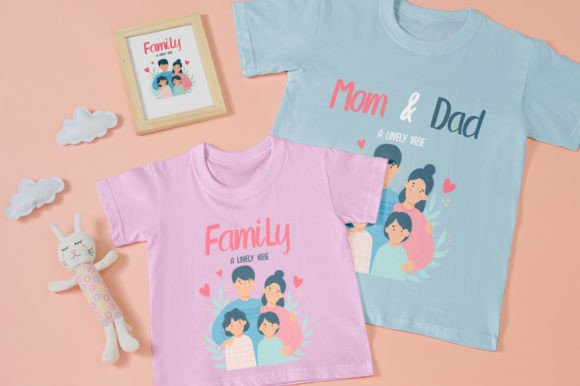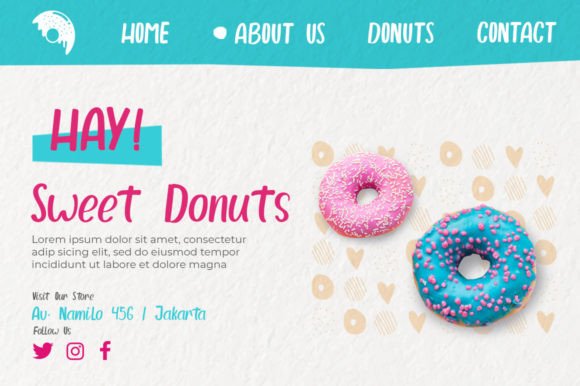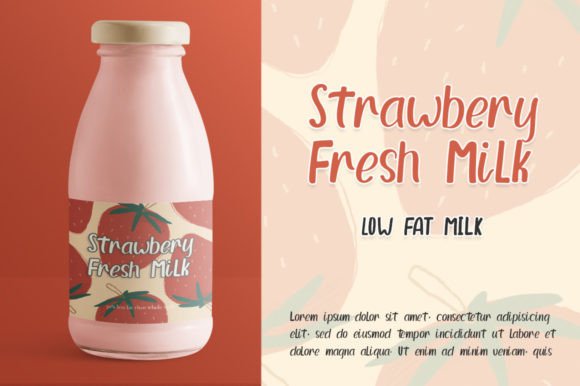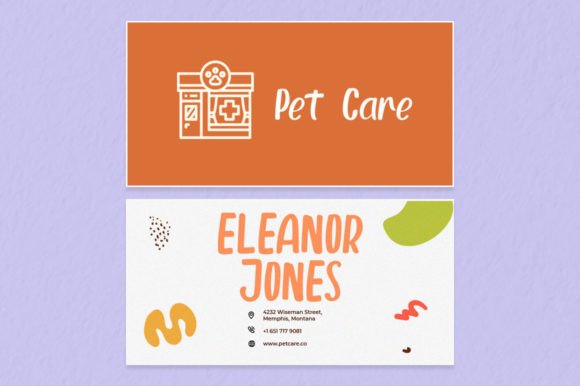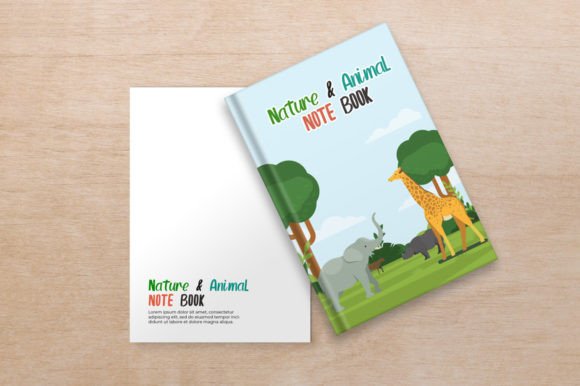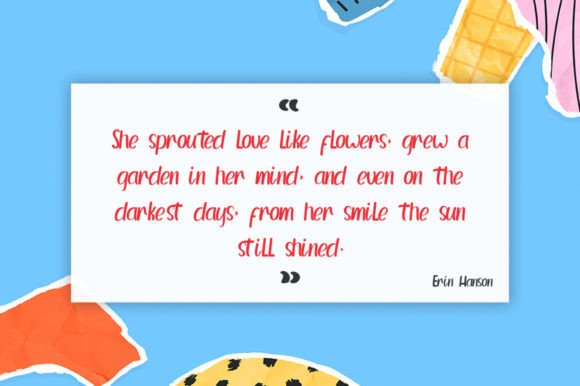
Introducing Blushing Beauty Font: The Sweetest Handwritten Display Font for Your Design Projects
Are you a designer or crafter looking for a font that can add a touch of sweetness and elegance to your projects? Look no further than Blushing Beauty Font! This beautiful handwritten display font is perfect for a wide range of design applications, from logos and posters to menus, clothing, and education projects. In this article, we’ll take a closer look at Blushing Beauty Font and explore its features, uses, and benefits.
What is Blushing Beauty Font?
Blushing Beauty Font is a sweet and elegant handwritten display font that is sure to capture the hearts of designers and crafters alike. Its delicate and cursive strokes make it perfect for creating beautiful and eye-catching designs that require a touch of sophistication and whimsy. Whether you’re working on a logo, poster, or social media graphic, Blushing Beauty Font is the perfect choice.
Key Features of Blushing Beauty Font
- Handwritten display font: Blushing Beauty Font is a carefully crafted handwritten font that mimics the look and feel of handwritten text.
- Cute and fancy: This font is perfect for designers and crafters who want to add a touch of cuteness and elegance to their designs.
- Versatile: Blushing Beauty Font can be used for a wide range of design projects, including logos, posters, menus, clothing, education projects, quotes, and more.
- Easily readable: Despite its delicate and cursive strokes, Blushing Beauty Font is easily readable, making it perfect for body text and headings.
Uses of Blushing Beauty Font
Blushing Beauty Font is an incredibly versatile font that can be used for a wide range of design projects. Here are some ideas to get you started:
- Logos: Create a beautiful and memorable logo for your business or brand with Blushing Beauty Font.
- Posters: Design eye-catching posters for events, promotions, or advertising campaigns using Blushing Beauty Font.
- Menus: Add a touch of elegance to your restaurant or cafe menu with Blushing Beauty Font.
- Clothing: Create custom apparel with Blushing Beauty Font, perfect for fashion brands, boutiques, or individual designers.
- Education projects: Use Blushing Beauty Font for educational materials, such as worksheets, activity sheets, or presentation slides.
- Quotes: Design inspiring and motivational quotes with Blushing Beauty Font, perfect for social media graphics or print materials.
Benefits of Using Blushing Beauty Font
So why choose Blushing Beauty Font for your design projects? Here are some benefits to consider:
- Unique and distinctive: Blushing Beauty Font is a one-of-a-kind font that will set your designs apart from the rest.
- Elegant and sophisticated: This font adds a touch of elegance and sophistication to any design project.
- High-quality: This font is carefully crafted to ensure high-quality and crisp text, even at small sizes.
In conclusion, Blushing Beauty Font is a beautiful and versatile handwritten display font that is perfect for a wide range of design projects. Its delicate and cursive strokes make it a great choice for designers and crafters who want to add a touch of sweetness and elegance to their designs. Whether you’re working on a logo, poster, menu, or education project, Blushing Beauty Font is the perfect choice. So why wait? Download Blushing Beauty Font today and start creating stunning designs that will capture the hearts of your audience!